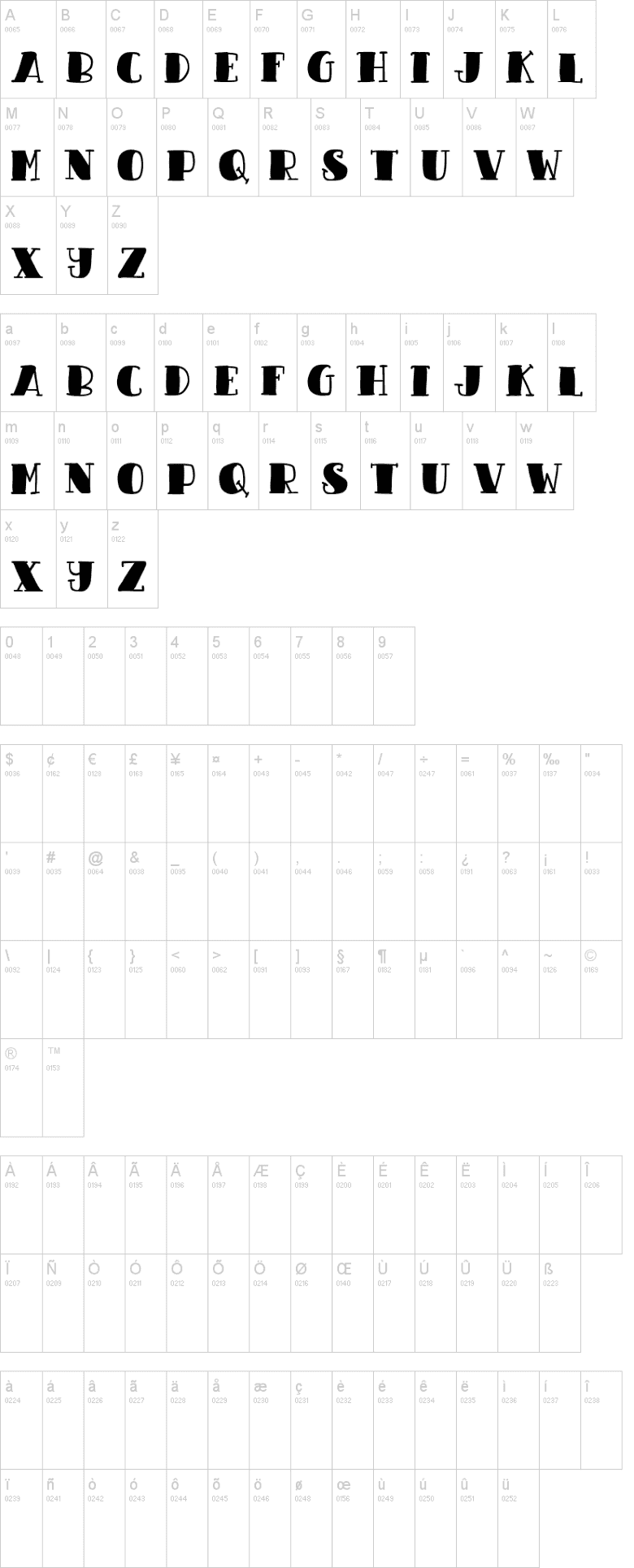
Here is a Candy Night Font for your consideration!This is a very bold and modern handwritten Slab Serif font. This font is created directly using a brush with wet ink to achieve an organic look! This font will be best to use in logo, branding, home textile design, product designs, packaging, mugs, quotes, posters, shopping bags, logo, t-shirts, book covers, namecard, invitation cards, greeting cards, and all your beautiful projects.